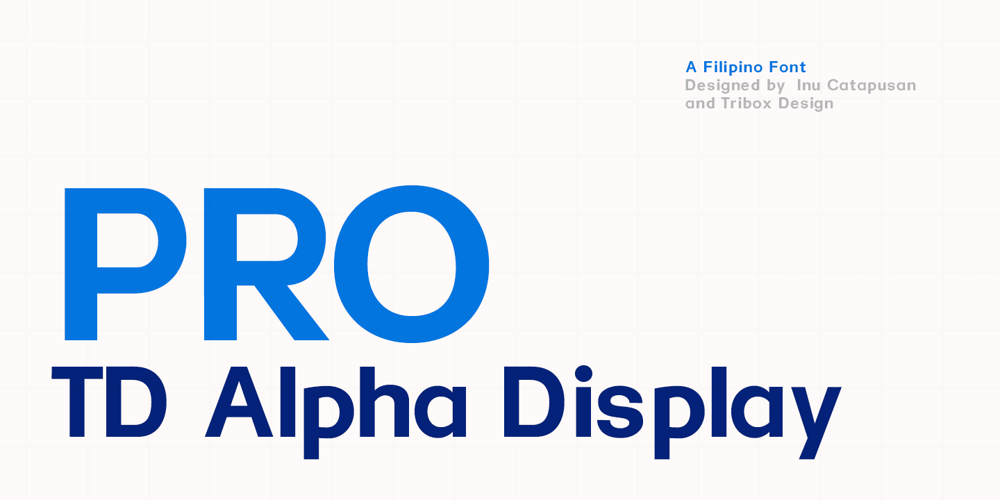
TD Alpha Pro
TD Alpha Pro font
TD Alpha Pro Font Family was designed by Inusentes Catapusan and published by Tribox Design. TD Alpha Pro contains 1 styles and family package options. Alpha is an intuitive, clean and modern sans serif typeface crafted to depict change, the new normal, and unbridled opportunities. It has excellent legibility and is ideal for usage in displays, headlines, labels, and website design.